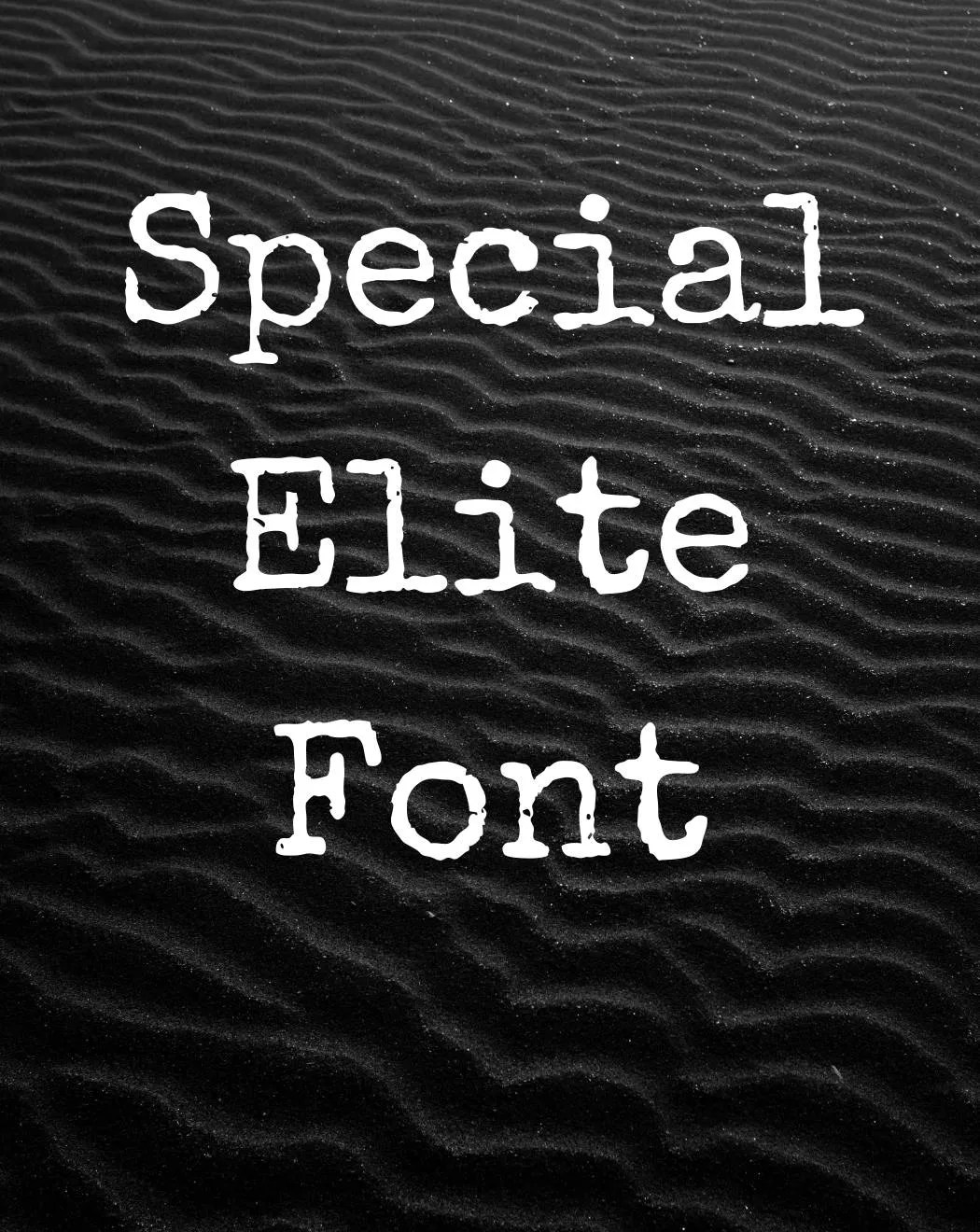
Special Elite Font Dafont . About special elite regular font. Special elite was created to mimic the smith corona special elite. special elite was created to mimic the smith corona special elite type no nr6 and remington noiseless. The special elite font has been. special elite mimics the smith corona special elite type number nr6 and remington noiseless typewriter models. special elite font is a fancy, typewriter font designed by astigmatic. free download of special elite font. Special elite font is licensed under apache license and free for both personel and. Released in 2011 by astigmatic one eye typographic institute and licensed for. download and install the special elite font by astigmatic one eye typographic institute.
Released in 2011 by astigmatic one eye typographic institute and licensed for. The special elite font has been. special elite was created to mimic the smith corona special elite type no nr6 and remington noiseless. About special elite regular font. special elite font is a fancy, typewriter font designed by astigmatic. free download of special elite font. Special elite font is licensed under apache license and free for both personel and. download and install the special elite font by astigmatic one eye typographic institute. Special elite was created to mimic the smith corona special elite. special elite mimics the smith corona special elite type number nr6 and remington noiseless typewriter models.
Special Elite Font Dafont download and install the special elite font by astigmatic one eye typographic institute. special elite was created to mimic the smith corona special elite type no nr6 and remington noiseless. Special elite was created to mimic the smith corona special elite. special elite font is a fancy, typewriter font designed by astigmatic. The special elite font has been. download and install the special elite font by astigmatic one eye typographic institute. Special elite font is licensed under apache license and free for both personel and. free download of special elite font. Released in 2011 by astigmatic one eye typographic institute and licensed for. About special elite regular font. special elite mimics the smith corona special elite type number nr6 and remington noiseless typewriter models.
Special Elite font Font Tr Special Elite Font Dafont special elite was created to mimic the smith corona special elite type no nr6 and remington noiseless. Special elite was created to mimic the smith corona special elite. special elite mimics the smith corona special elite type number nr6 and remington noiseless typewriter models. About special elite regular font. The special elite font has been. special elite. Special Elite Font Dafont.
Elite Classy Serif Font Font Kong Special Elite Font Dafont The special elite font has been. special elite font is a fancy, typewriter font designed by astigmatic. free download of special elite font. Special elite was created to mimic the smith corona special elite. download and install the special elite font by astigmatic one eye typographic institute. special elite was created to mimic the smith corona. Special Elite Font Dafont.
War Elite Font Dafont Free Special Elite Font Dafont special elite mimics the smith corona special elite type number nr6 and remington noiseless typewriter models. special elite was created to mimic the smith corona special elite type no nr6 and remington noiseless. Released in 2011 by astigmatic one eye typographic institute and licensed for. free download of special elite font. download and install the special. Special Elite Font Dafont.
Special Elite free Font What Font Is Special Elite Font Dafont Released in 2011 by astigmatic one eye typographic institute and licensed for. The special elite font has been. download and install the special elite font by astigmatic one eye typographic institute. Special elite was created to mimic the smith corona special elite. Special elite font is licensed under apache license and free for both personel and. special elite. Special Elite Font Dafont.
Special Elite Font Download Fonts4Free Special Elite Font Dafont About special elite regular font. The special elite font has been. special elite font is a fancy, typewriter font designed by astigmatic. Special elite font is licensed under apache license and free for both personel and. Released in 2011 by astigmatic one eye typographic institute and licensed for. special elite mimics the smith corona special elite type number. Special Elite Font Dafont.
Special Elite free font Special Elite Font Dafont Special elite font is licensed under apache license and free for both personel and. Special elite was created to mimic the smith corona special elite. special elite was created to mimic the smith corona special elite type no nr6 and remington noiseless. Released in 2011 by astigmatic one eye typographic institute and licensed for. download and install the. Special Elite Font Dafont.
Special Elite Pro Serif Fonts Creative Market Special Elite Font Dafont special elite mimics the smith corona special elite type number nr6 and remington noiseless typewriter models. The special elite font has been. About special elite regular font. download and install the special elite font by astigmatic one eye typographic institute. Released in 2011 by astigmatic one eye typographic institute and licensed for. special elite font is a. Special Elite Font Dafont.
Special Elite Font Free Download Special Elite Font Dafont The special elite font has been. special elite font is a fancy, typewriter font designed by astigmatic. download and install the special elite font by astigmatic one eye typographic institute. Special elite font is licensed under apache license and free for both personel and. special elite was created to mimic the smith corona special elite type no. Special Elite Font Dafont.
Special Elite Font Dafont The special elite font has been. About special elite regular font. special elite mimics the smith corona special elite type number nr6 and remington noiseless typewriter models. Special elite font is licensed under apache license and free for both personel and. special elite was created to mimic the smith corona special elite type no nr6 and remington noiseless.. Special Elite Font Dafont.